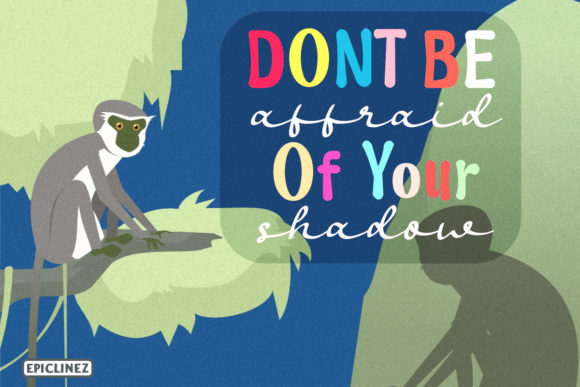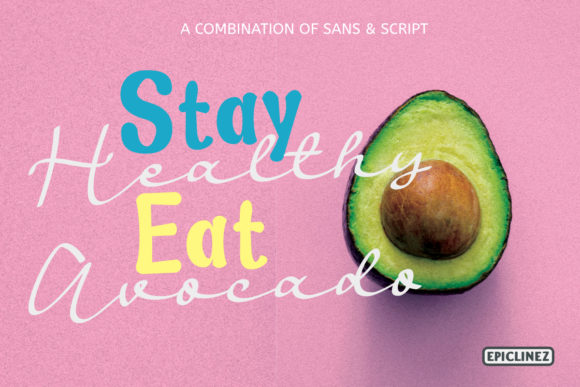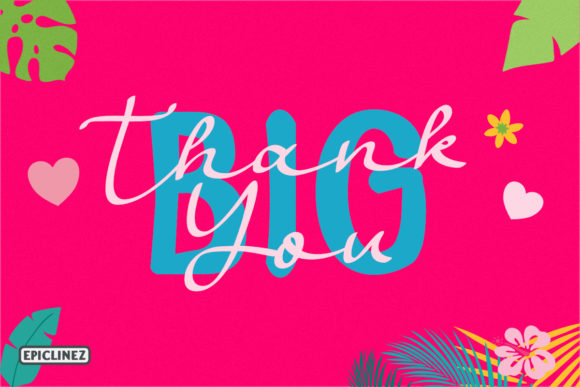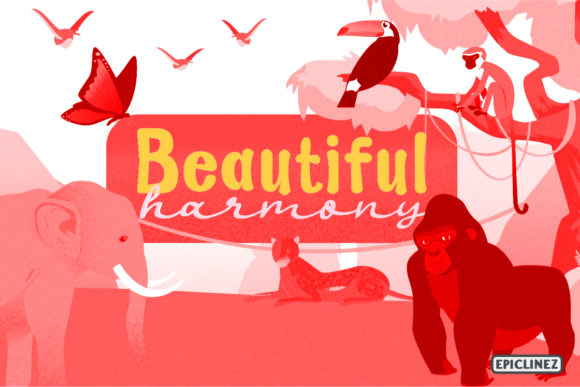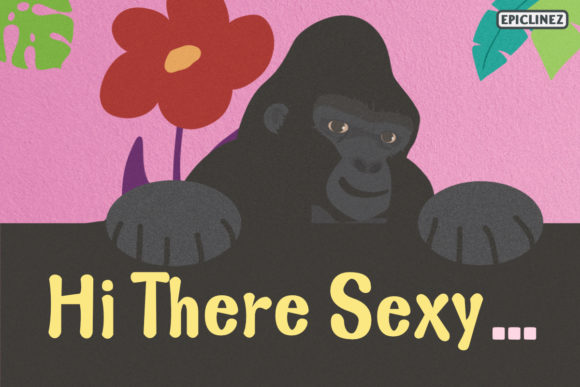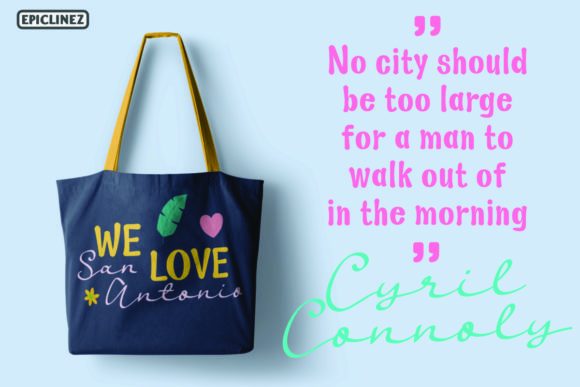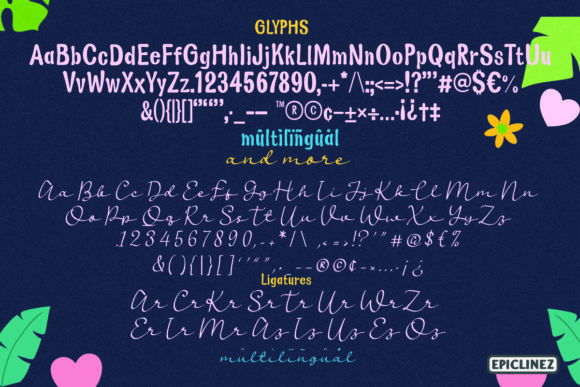
Pink Avocado Font
About Pink Avocado Font
Pink Avocado is a playful font duo.The sans is comically bold and playful and the script adds a special touch to any design projects.
This font can be used in a wide variety of applications from logos, magazine covers, headlines, t-shirts to anything you can think of.